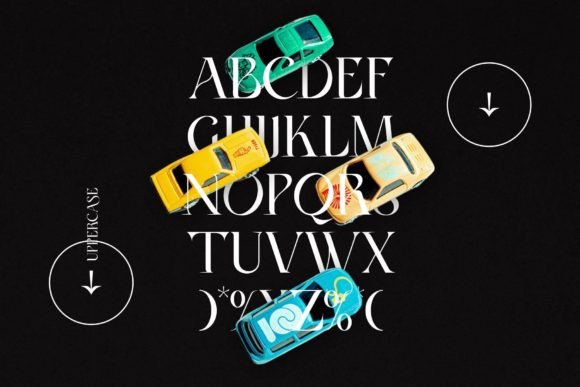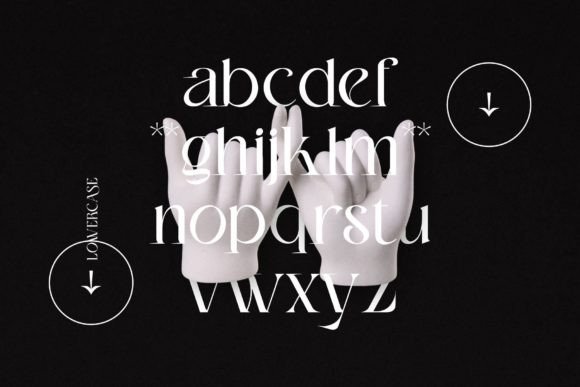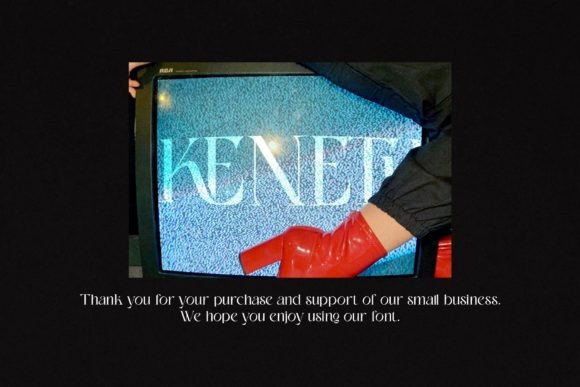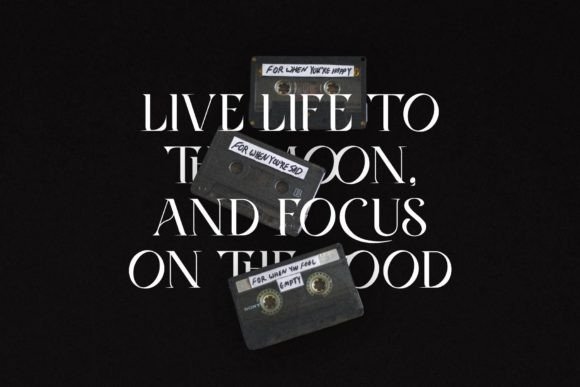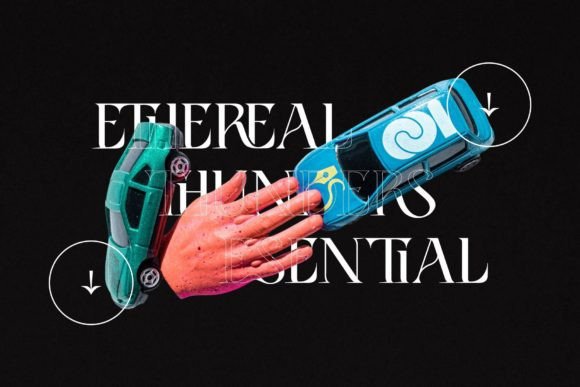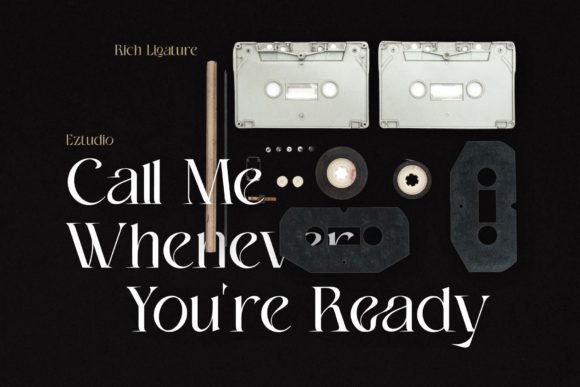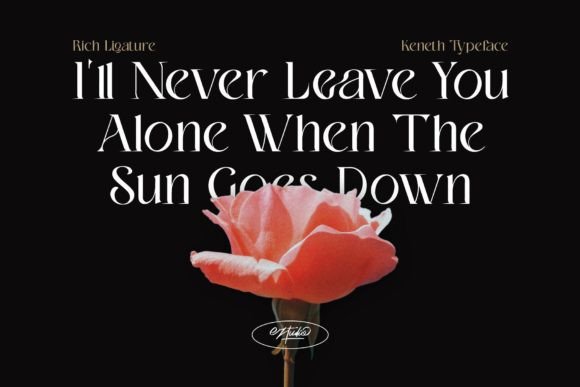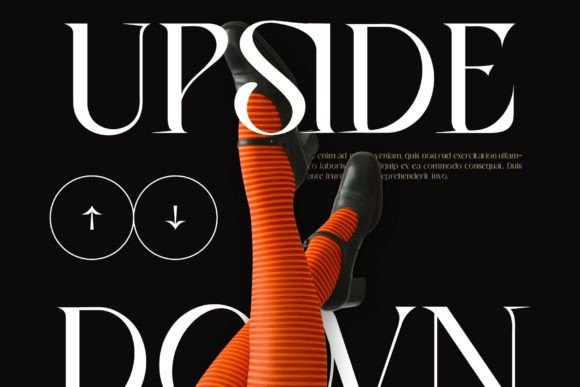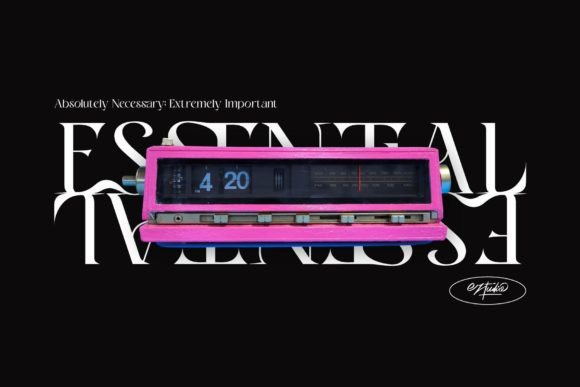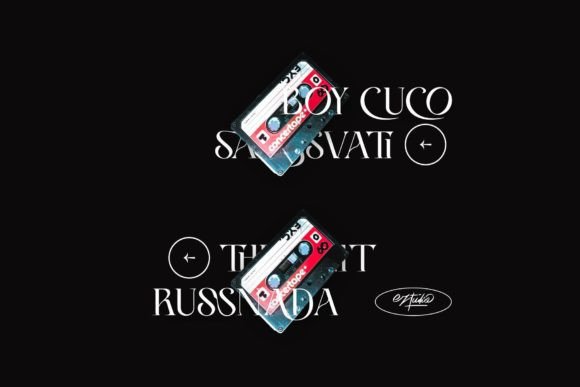
Keneth
Keneth: A Stylish and Trendy Slab Serif Font
Keneth is a stylish and trendy slab serif font. It boasts a classy and modern look that makes it versatile for various applications, including logos, branding, invitations, stationery, wedding designs, social media posts, and much more!
Key Features of Keneth
• Stylish Design: Offers a contemporary and fashionable look suitable for various applications.
• Slab Serif Structure: Features distinctive serifs that add character and modernity.
• Versatile Application: Ideal for both print and digital media projects.
• Classy Appearance: Brings a touch of elegance to designs while maintaining a modern edge.
Ideal Uses for Keneth
Keneth’s unique characteristics make it particularly well-suited for:
When incorporating Keneth into your designs, consider these tips:
• Use for headlines or short blocks of text to showcase its stylish features.
• Experiment with different sizes to highlight the font’s trendy characteristics.
• Utilize its classy appearance to elevate the overall look of your designs.
Keneth is an excellent choice for designers looking to add a stylish and trendy slab serif font to their typographic toolkit. Its ability to bring a classy yet modern touch to various design projects makes it stand out in the world of typography. Whether you’re working on branding materials, creating wedding invitations, or developing content for social media, Keneth offers the perfect blend of style and functionality.
Furthermore, Keneth’s unique design allows it to shine in various contexts. From elegant wedding stationery to bold social media graphics, this font can elevate your projects with its distinctive style. Its trendy yet readable appearance works particularly well in designs that aim to make a contemporary and fashionable statement.
In conclusion, Keneth is a font that truly captures the essence of modern elegance in typography. Its versatility makes it suitable for a wide range of applications, from formal invitations to dynamic digital content. For those looking to add a touch of stylish charm to their work, Keneth can enhance themed creations with its distinctive style. It’s the perfect choice for designers seeking to make a classy, modern impact across a wide range of creative projects.